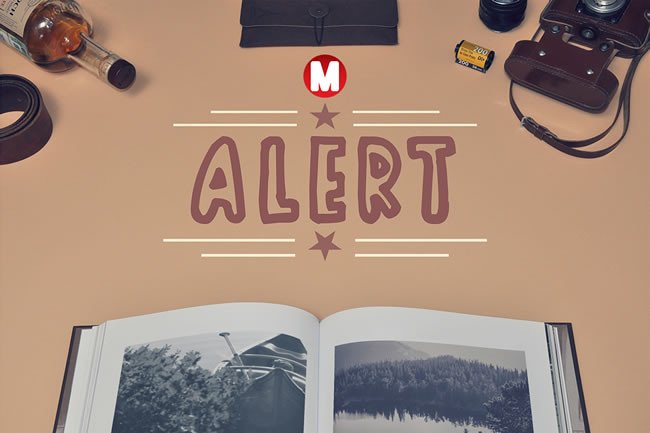
The Alert Font: A Bold and Beautiful Typeface for Creative Projects
I’ll never forget the time I was working on a wedding invitation design project, and my client asked for a font that was both elegant and eye-catching. I scoured the internet, tried out countless fonts, but none seemed to fit the bill. That was until I stumbled upon the Alert font. This beautiful bold typeface has since become a staple in my design toolkit, and I’m excited to share its awesomeness with you!
A Personal Review: What I Love About Alert Font
Here’s what makes Alert font a standout:
• ✨ Bold and beautiful: Alert font is perfect for making a statement. Its bold weight and elegant lines make it ideal for headings, titles, and logos.
• ✅ Versatile: This font can be used for a wide range of projects, from wedding invitations and signage to t-shirts and posters.
• 🌈 Highly legible: Despite its bold weight, Alert font remains highly legible, even at smaller sizes.
While Alert font is an excellent choice, there are a few things to keep in mind:
• 🤔 Limited OpenType features: Alert font has a limited set of OpenType features, which may not be ideal for designers who rely heavily on advanced typography.
• ⚠️ Not suitable for body text: Due to its bold weight, Alert font is not suitable for body text. It’s best used for headings, titles, and emphasis.
Alert font was designed with the intention of creating a bold and beautiful typeface that could be used for a wide range of creative projects. Its designer aimed to craft a font that was both elegant and attention-grabbing, perfect for making a statement.
What is the best use case for Alert font? Alert font is perfect for headings, titles, logos, and any project where you want to make a bold statement.
Is Alert font suitable for body text? No, Alert font is not suitable for body text due to its bold weight. It’s best used for emphasis and headings.
Does Alert font have OpenType features? Alert font has a limited set of OpenType features. For more advanced typography, you may want to consider alternative fonts.